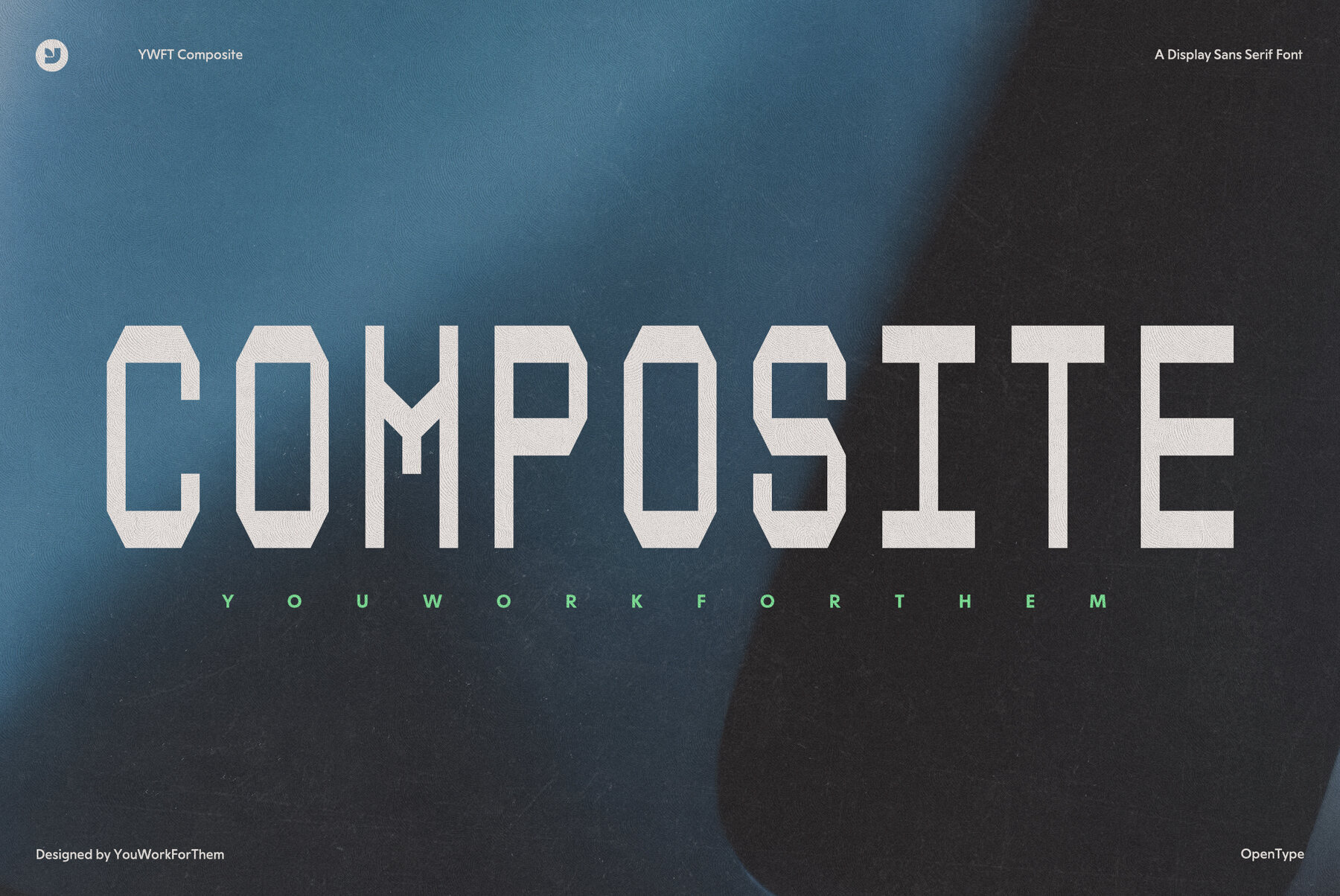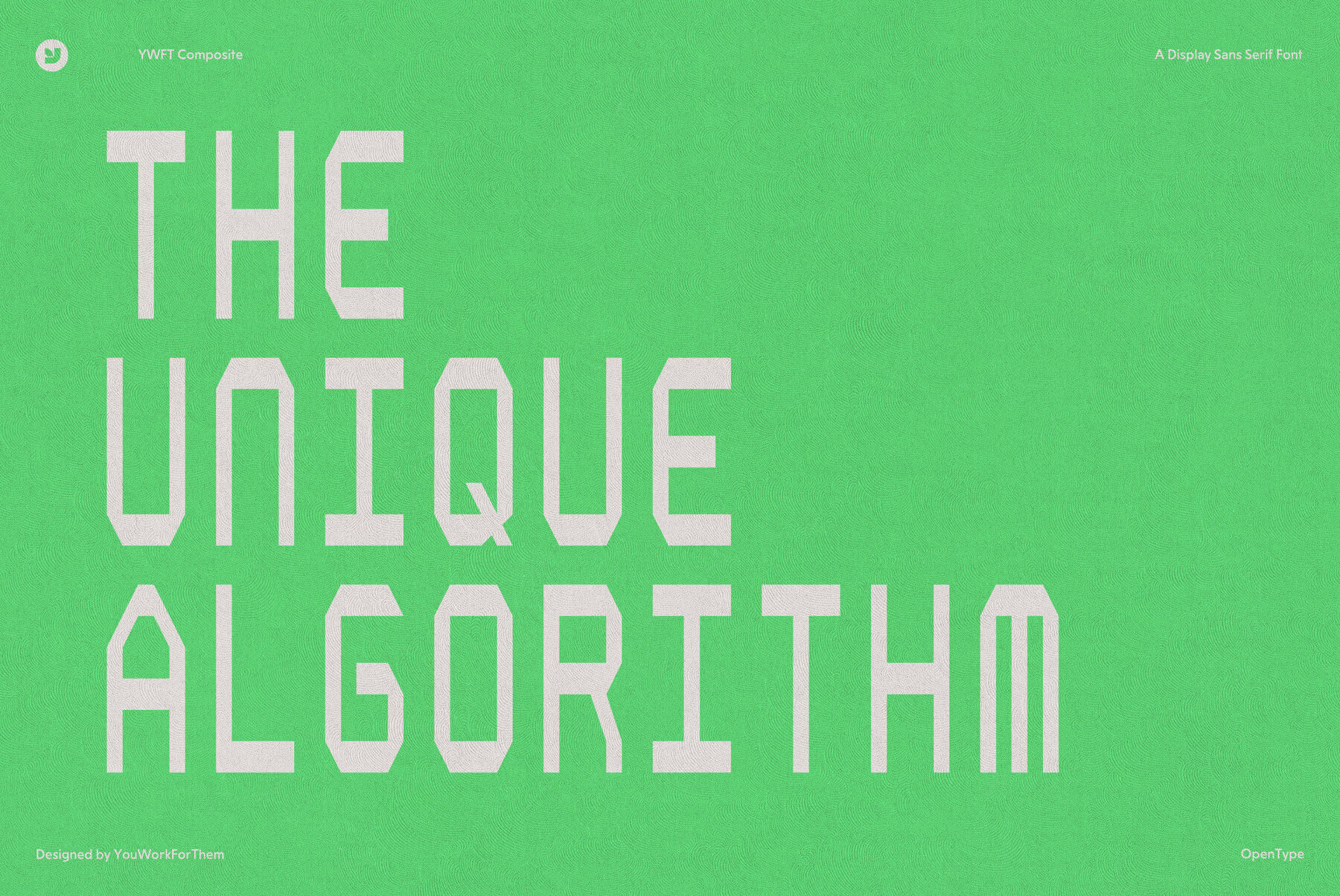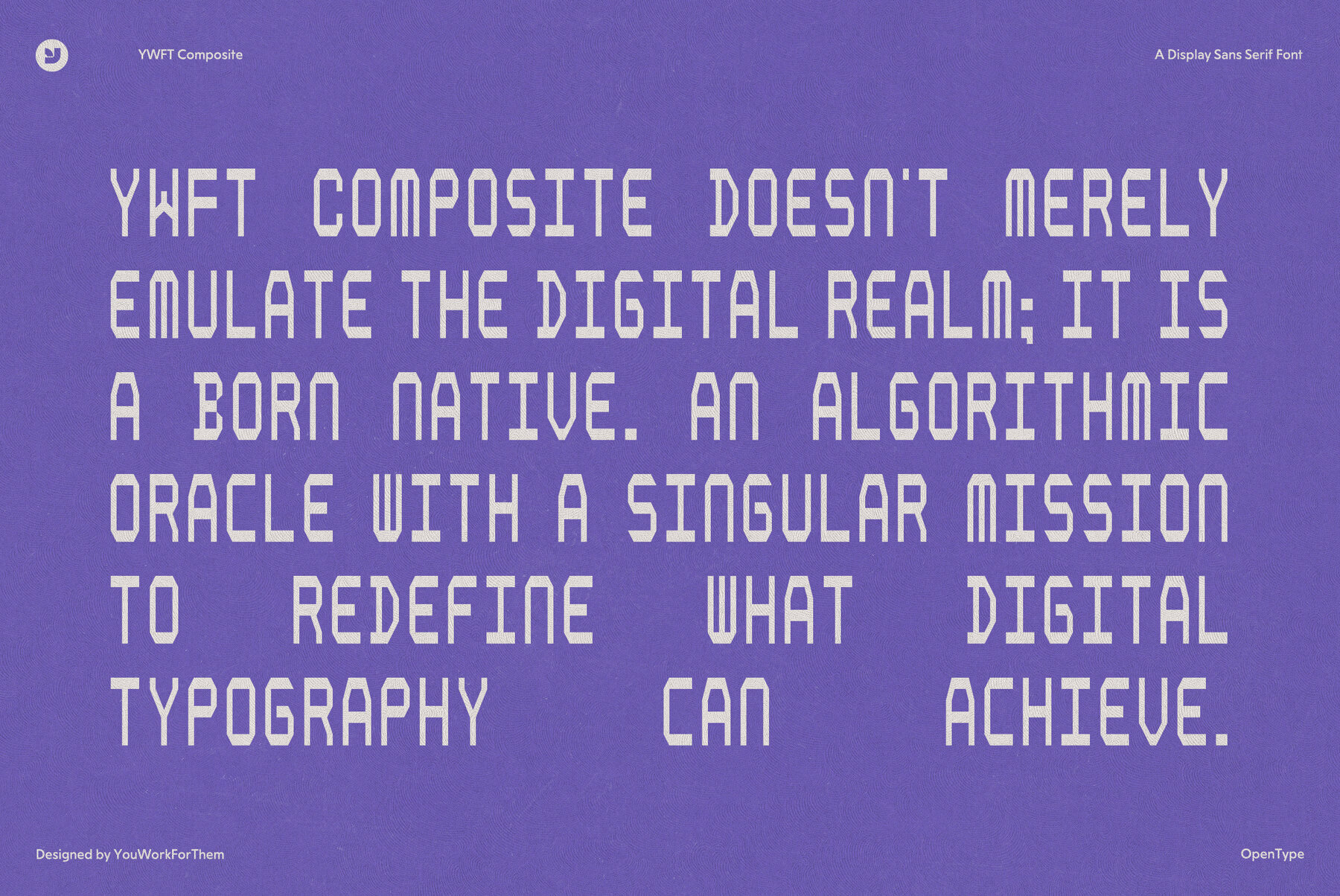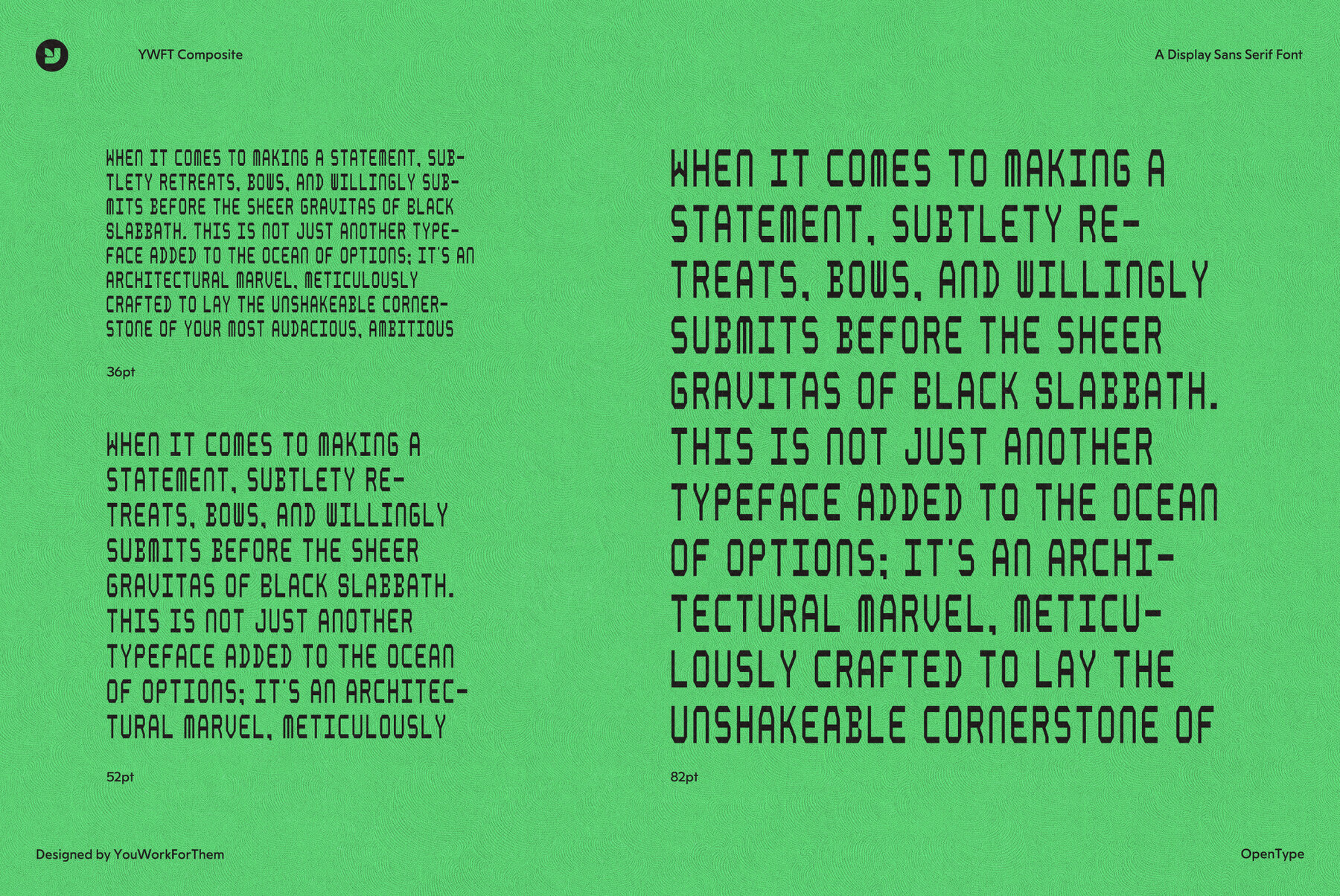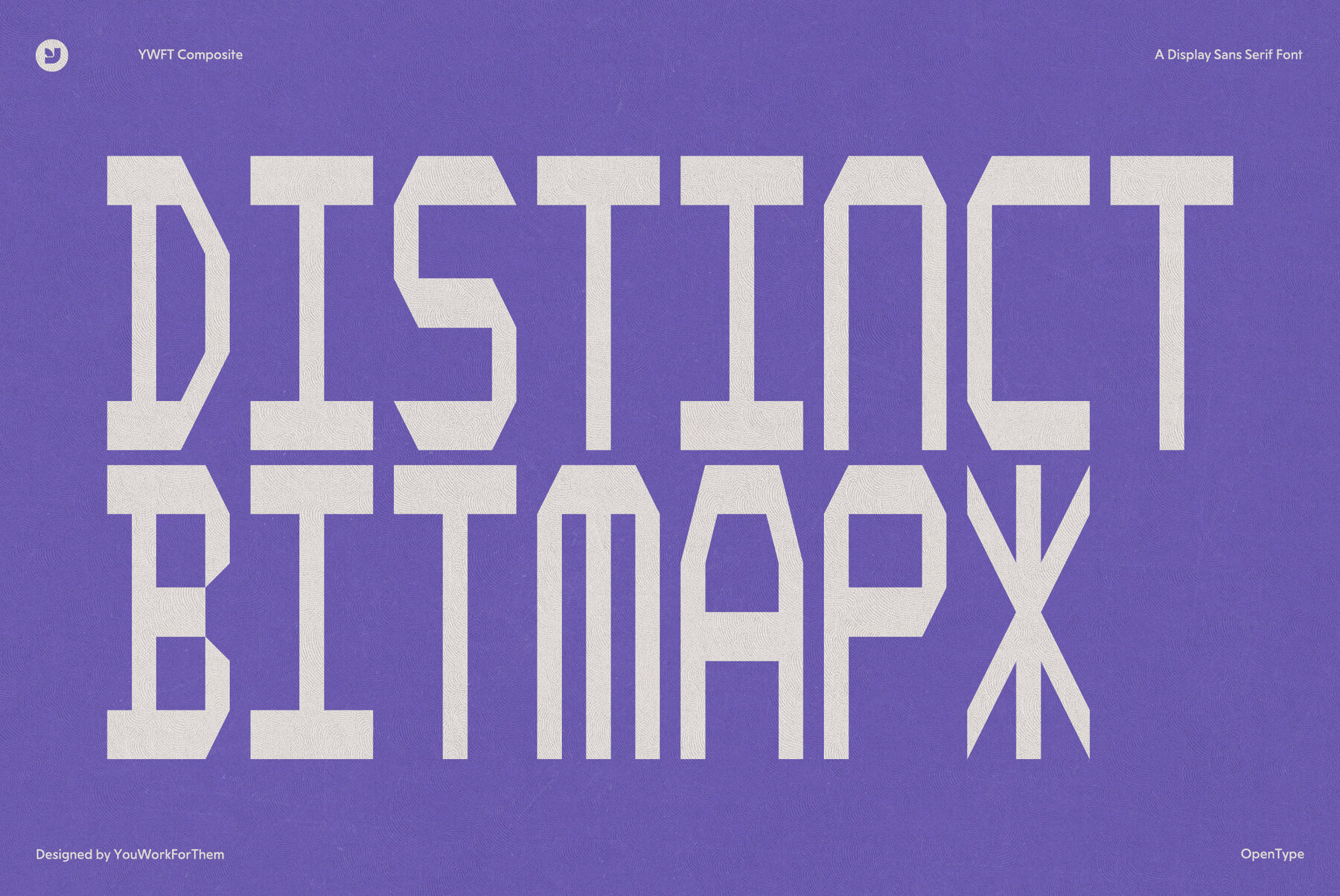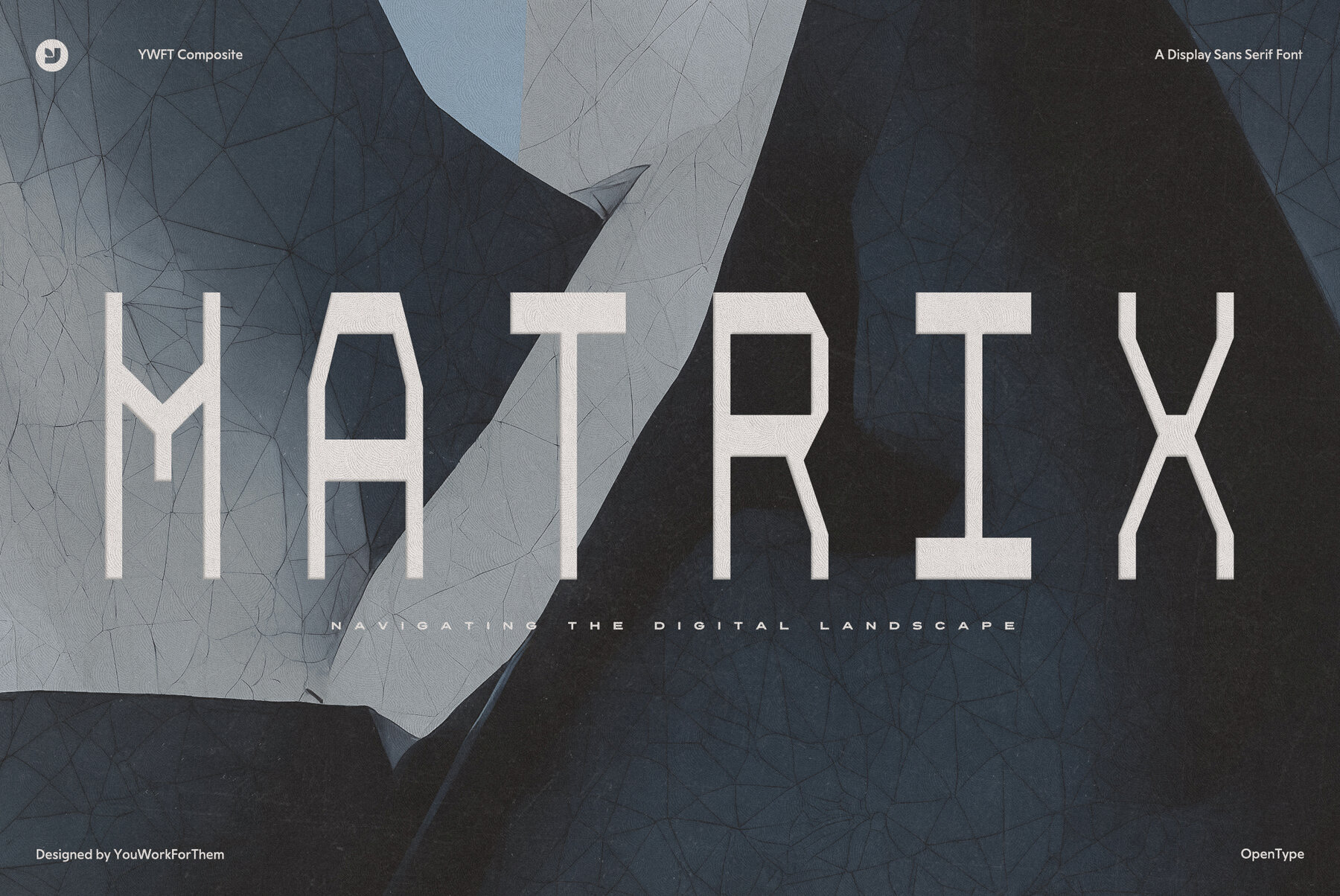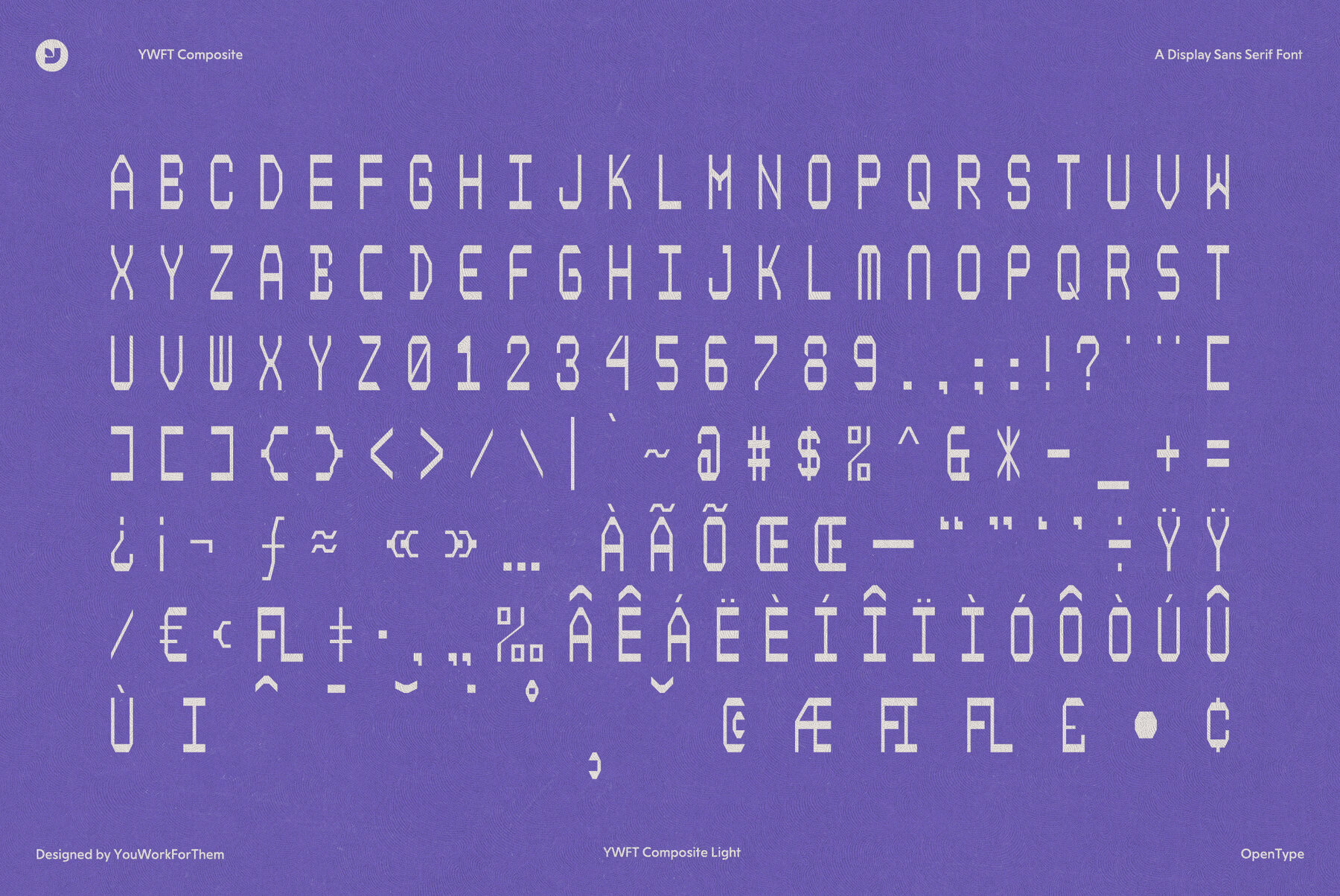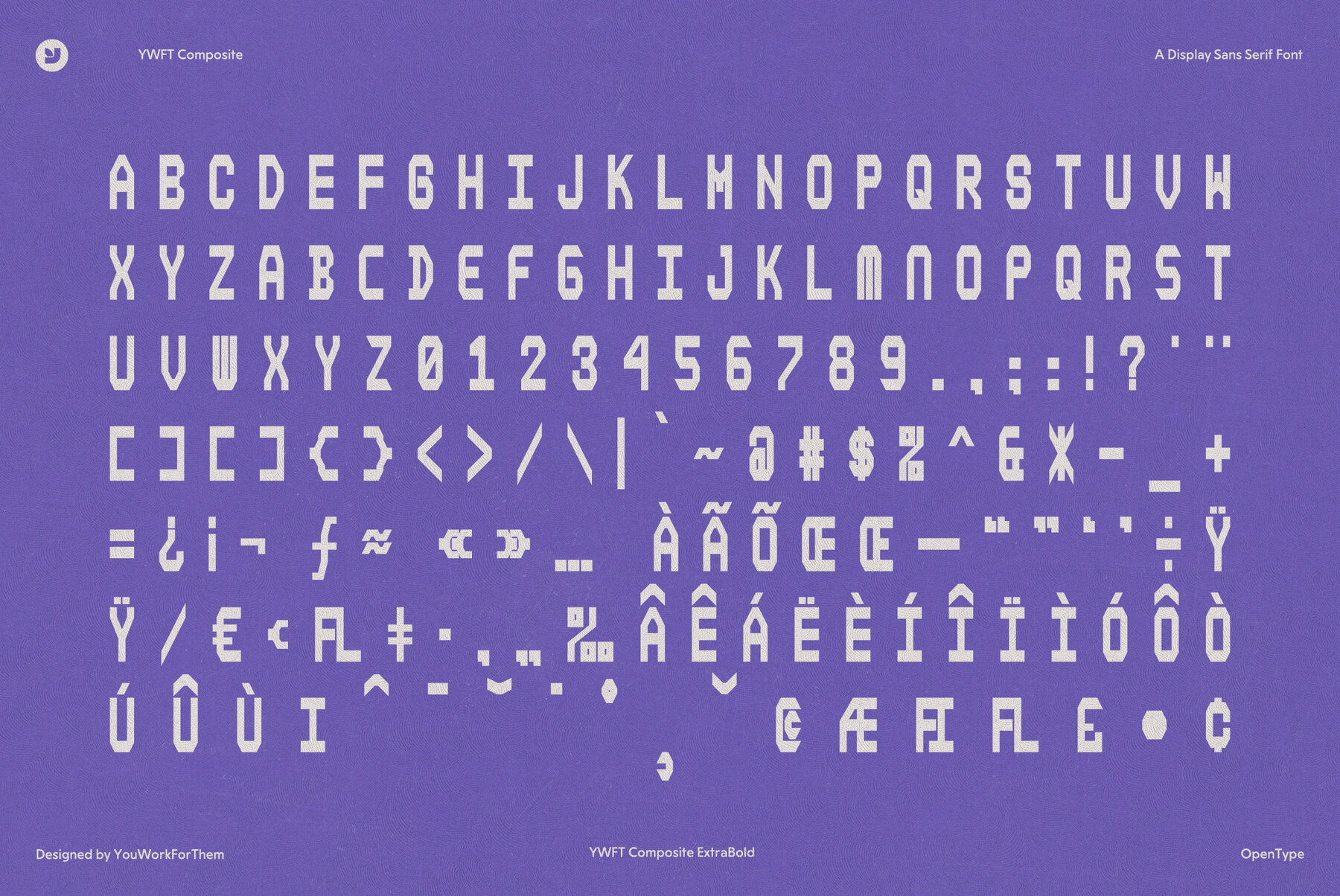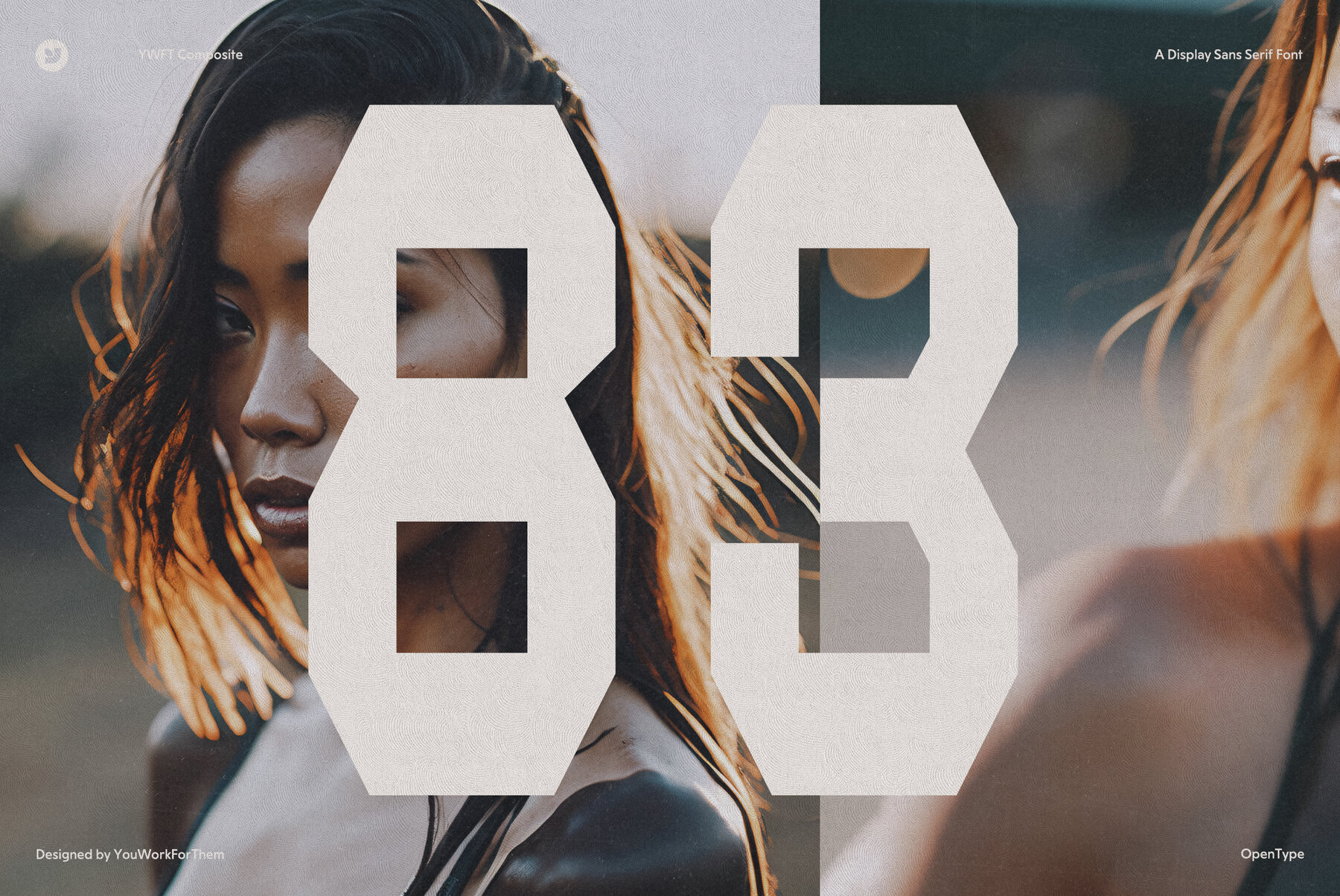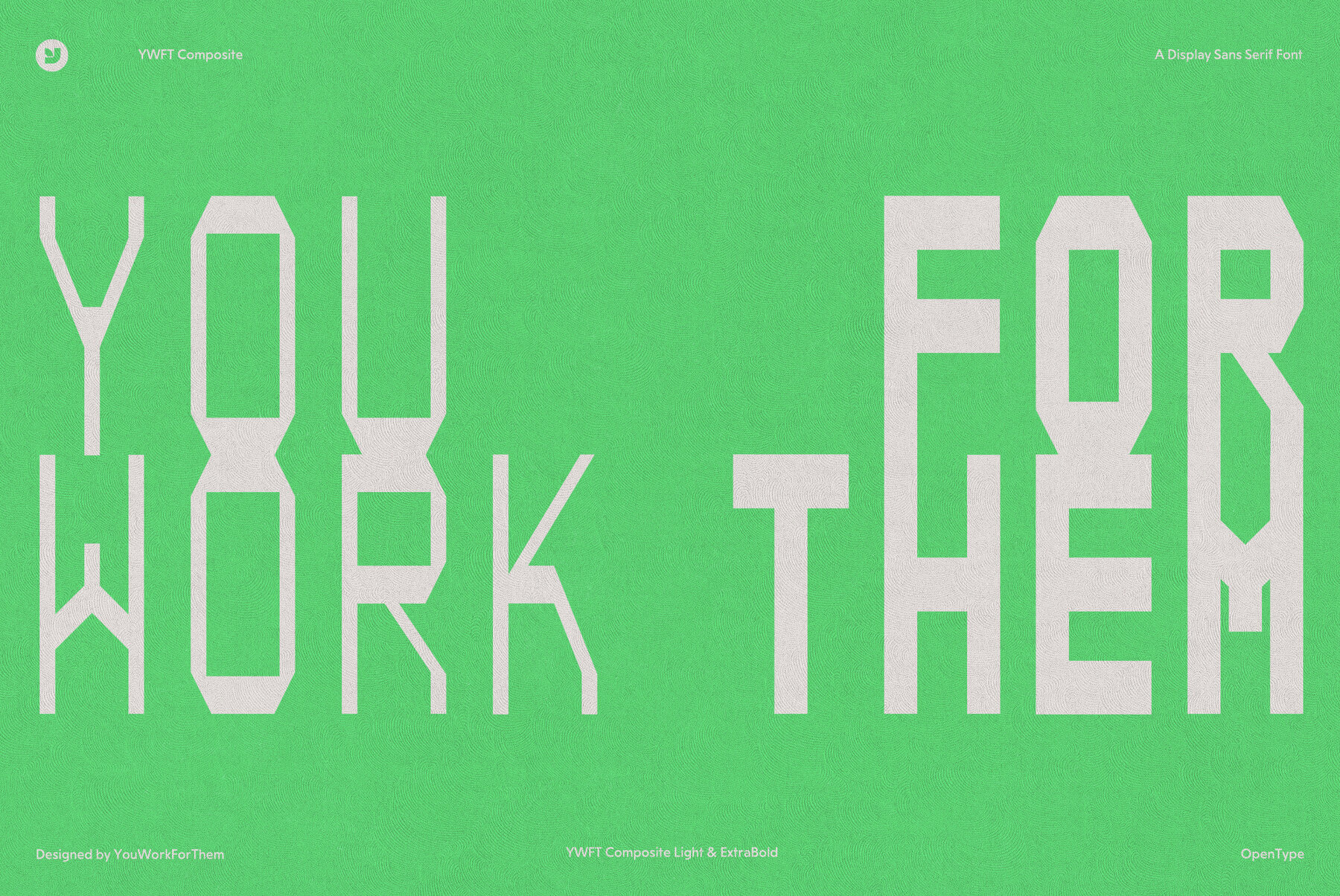
YWFT Composite
YWFT Composite is a bitmap-/digital-style design, inspired by the collecting machine-generated printouts that are constantly encountered during press checks. Unlike most digital/robotic alphabets, YWFT Composite possesses the unique and sought-after quality of working well for both onscreen and print layouts, while maintaining control of the spaceship as you lazy humans slumber on through hypersleep. It has been used in numerous magazines as a strong masculine header face, and also works well for short body content onscreen. YWFT Composite was designed in 1999, and converted to Opentype in 2010. Designed exclusively by Michael Cina and YouWorkForThem.